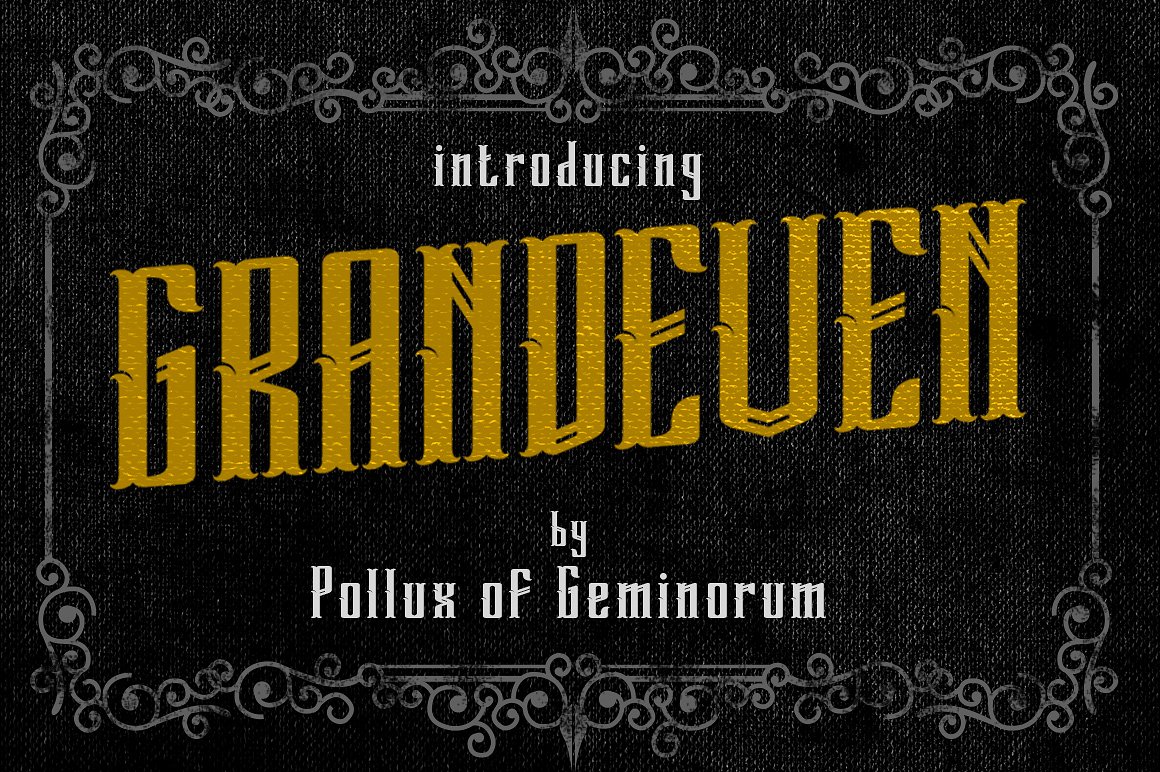
Grandeven Typeface
Pollux of Geminorum present Grandeven Typeface. Uppercase and lowercase with vintage/retro feel. You can mix and match the letters also combine with borders (bonus) that will makes this font eye catching and look stylist. Many benefit using this font as a visual attractive. You can use this font as headline, logo, wedding invitation, t-shirt design, posters, label, book cover, greeting card, etc.